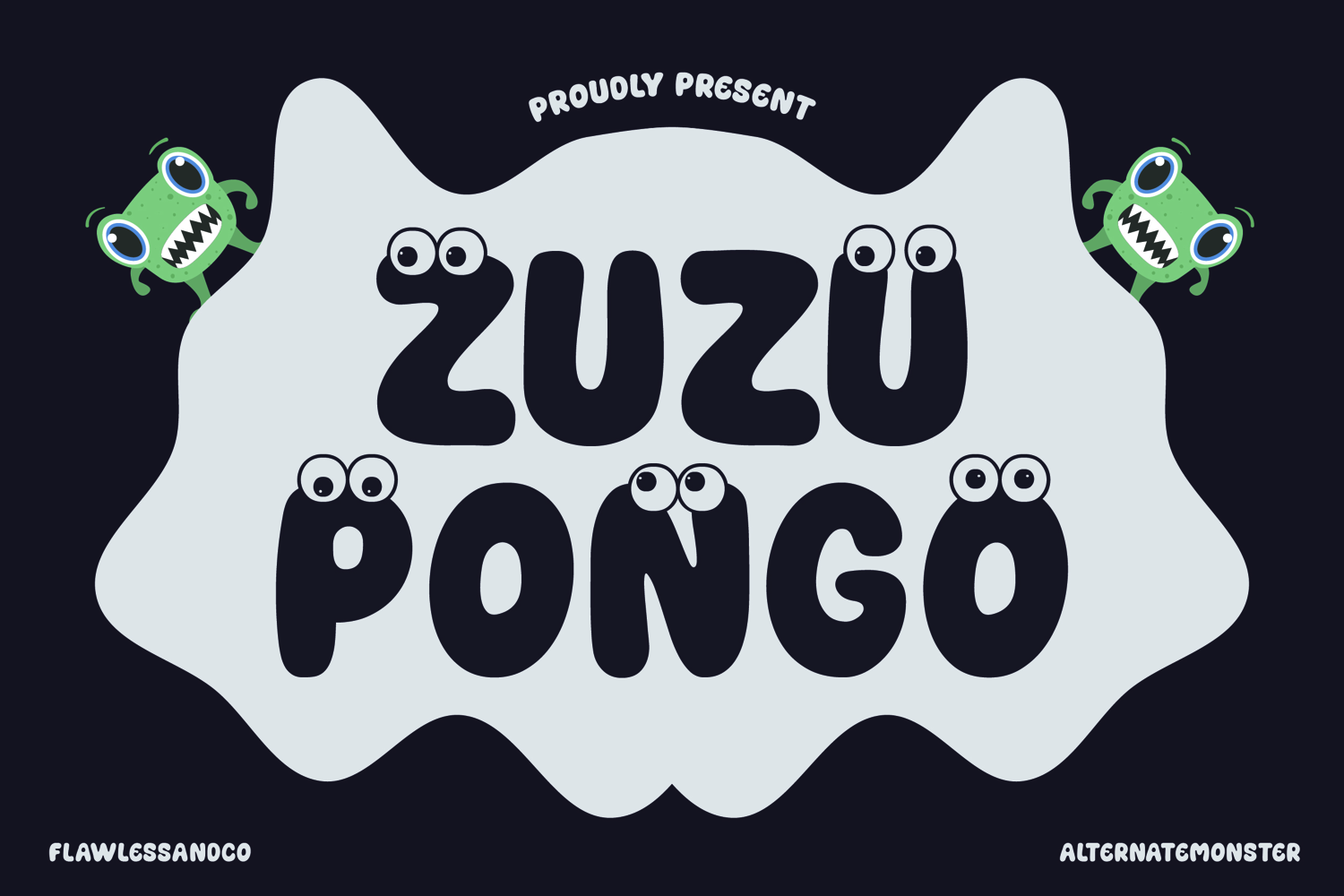
Zuzupongo
ZUZUPONGO
Zuzupongo – A Playful Monster Cute Typeface
Zuzupongo is a fun, quirky, and cheerful monster-inspired font that brings smiles and creativity to your projects. With its bold, rounded shapes and adorable monster vibes, this font is perfect for adding a touch of playfulness and friendliness to any design. Whether you’re designing for kids’ books, birthday invitations, party flyers, cartoon titles, or playful branding projects, Zuzupongo is the ideal choice to make your work stand out with charm and cuteness.
• Alternates & Ligatures
Who Should Use Zuzupongo?
Zuzupongo is made for designers, creatives, and brands who want to bring fun, joy, and personality into their projects.
This font is perfect for:
• Children’s book authors & illustrators looking for playful, friendly typefaces
• Party planners & invitation designers who want eye-catching, cute lettering
• Toy & kids’ product brands needing a fun, approachable identity
• Cartoon, comic, and animation creators searching for bold and quirky titles
• Social media content creators aiming for vibrant and cheerful visuals
A Must-Have Font for Brand & Children’s Book Creators and Designers
Zuzupongo is more than just a typeface — it’s a creative tool that adds charm, joy, and imagination to your work. With its playful curves and friendly vibe, this font is a must-have for brand builders, children’s book creators, and designers who want to make their projects fun, approachable, and full of life.
Why Choose Zuzupongo for Brand & Kids Projects?
Zuzupongo is designed to spark creativity and joy, making it the perfect choice for projects that speak to children and family-friendly audiences. Its playful style blends fun with readability, ensuring your brand feels warm, inviting, and memorable. Whether for kids’ logos, toy packaging, educational materials, or playful branding, Zuzupongo helps your designs stand out with personality and charm.
Suitable For:
• Children’s book covers & story illustrations
• Kids’ brand logos & playful packaging
• Educational materials, posters, and activity sheets
• Toy branding & merchandise designs
• Social media graphics for family and kids’ content
• Greeting cards, invitations, and party themes
• Fun editorial layouts & creative projects with a playful touch